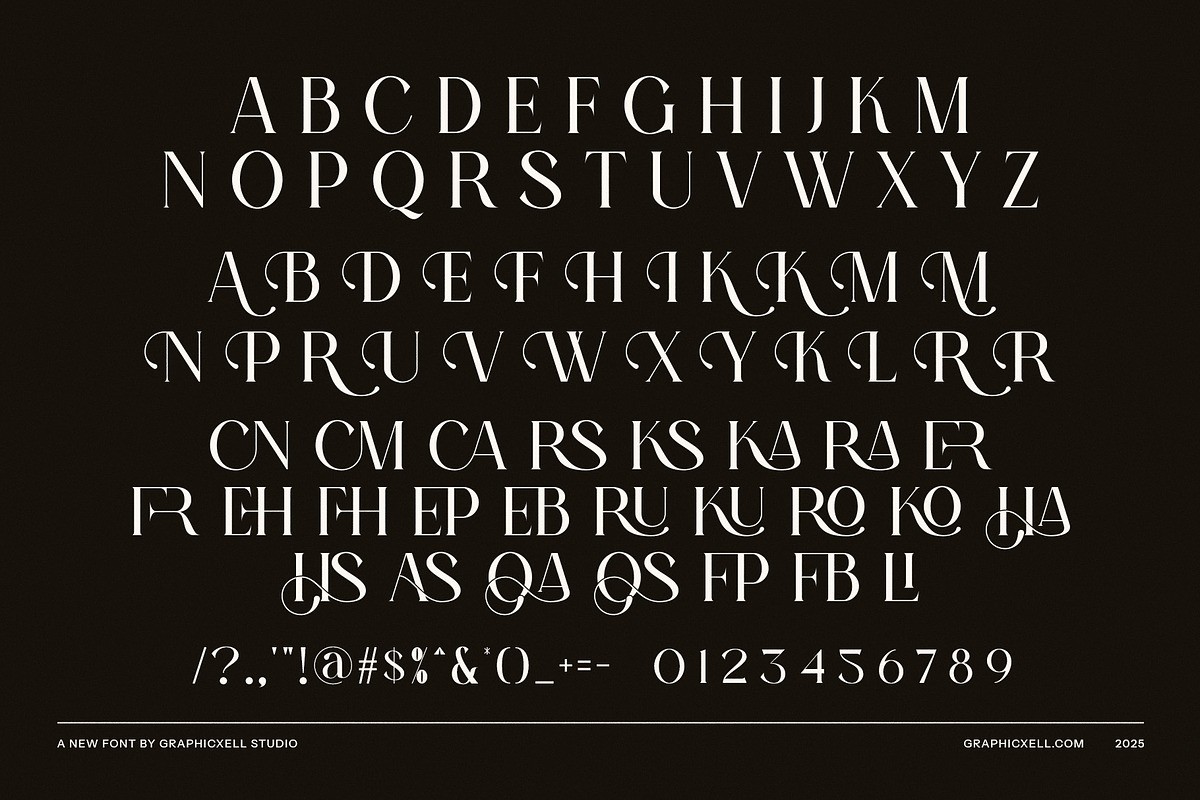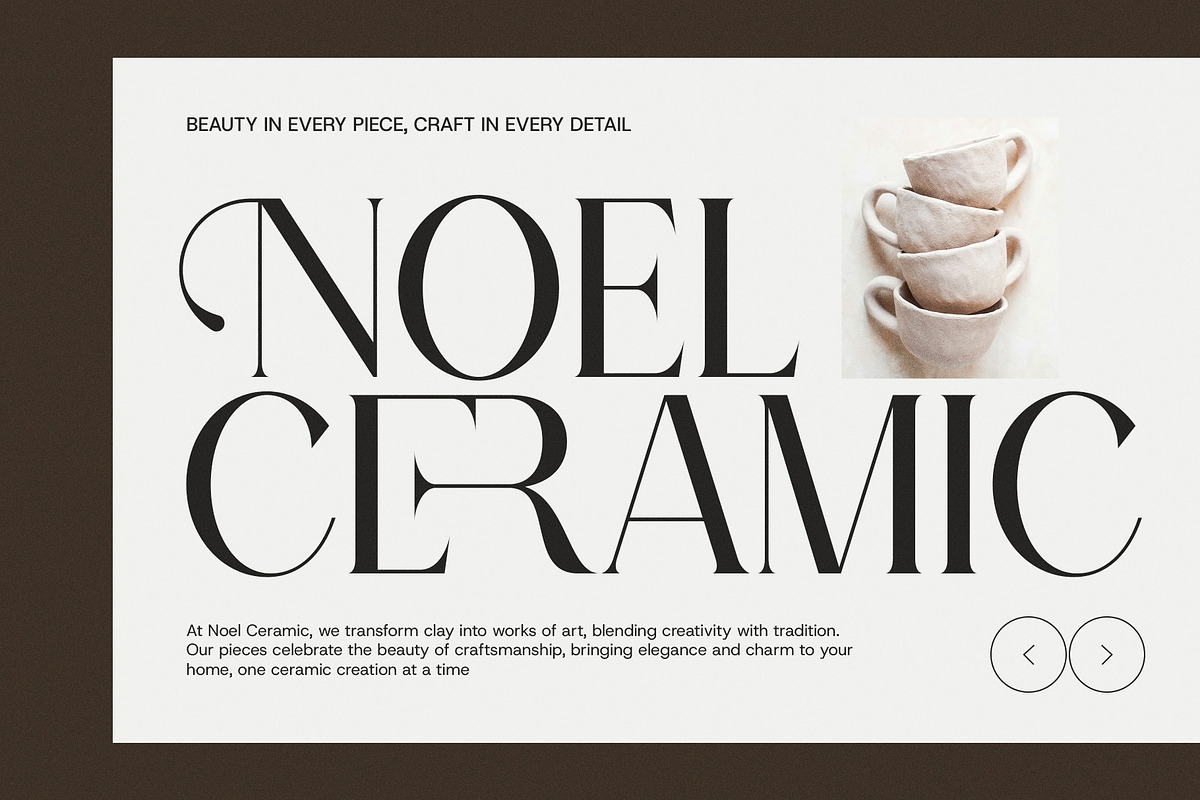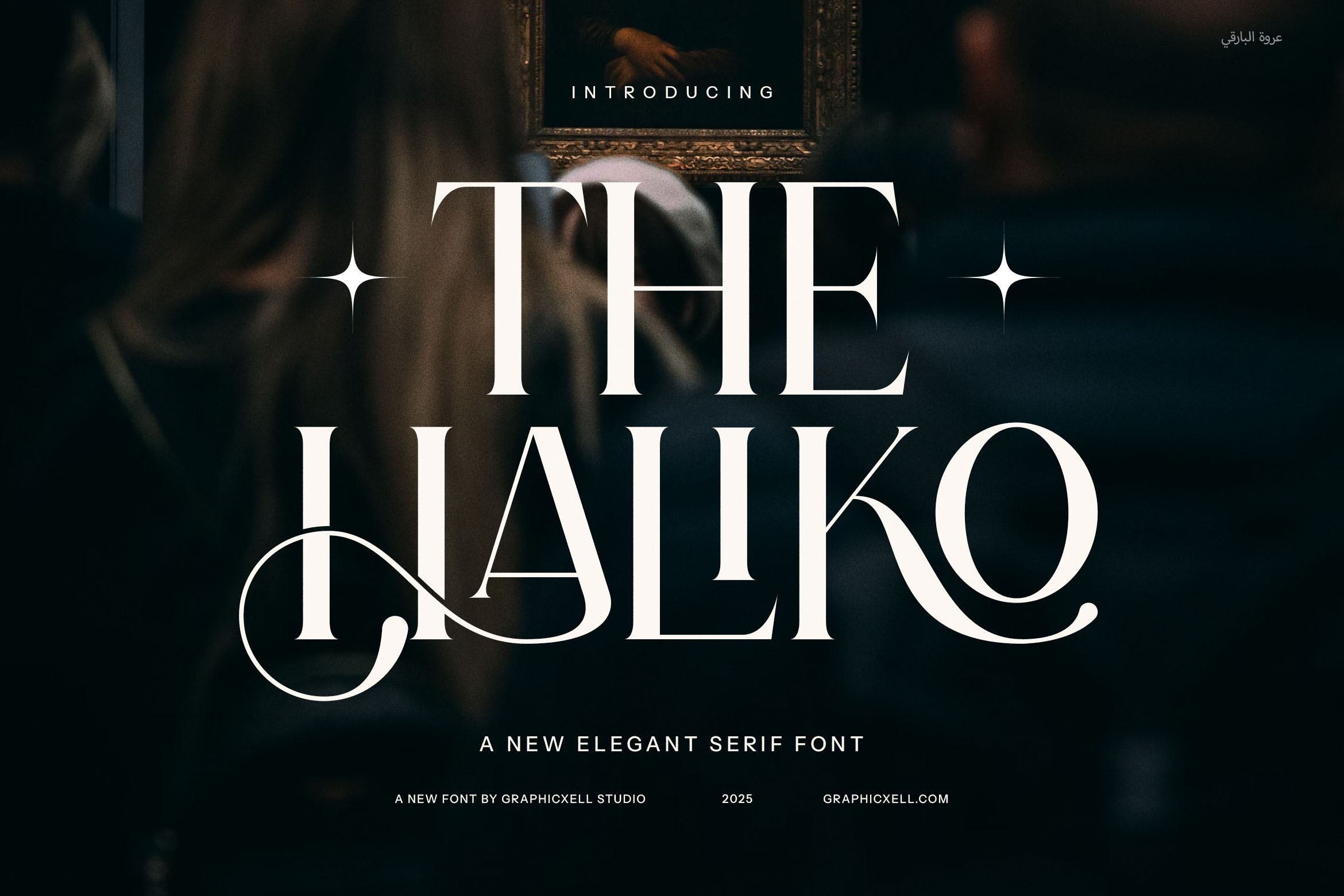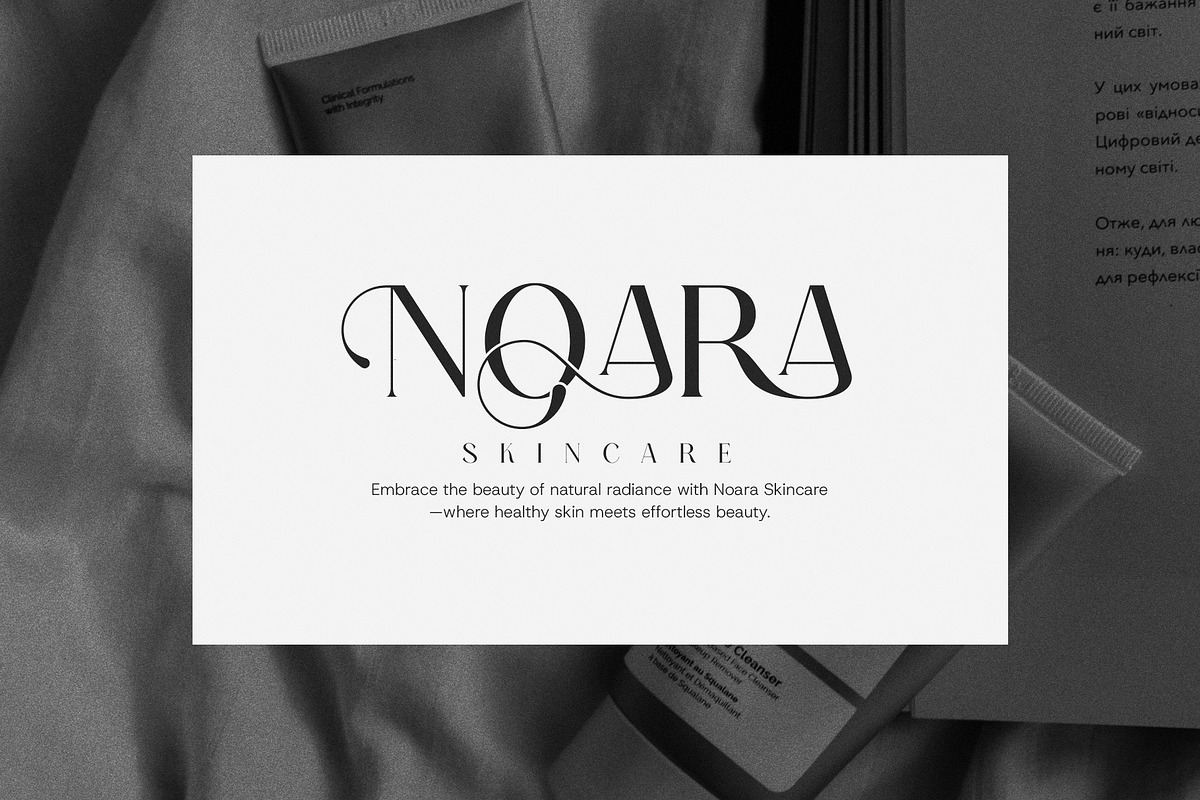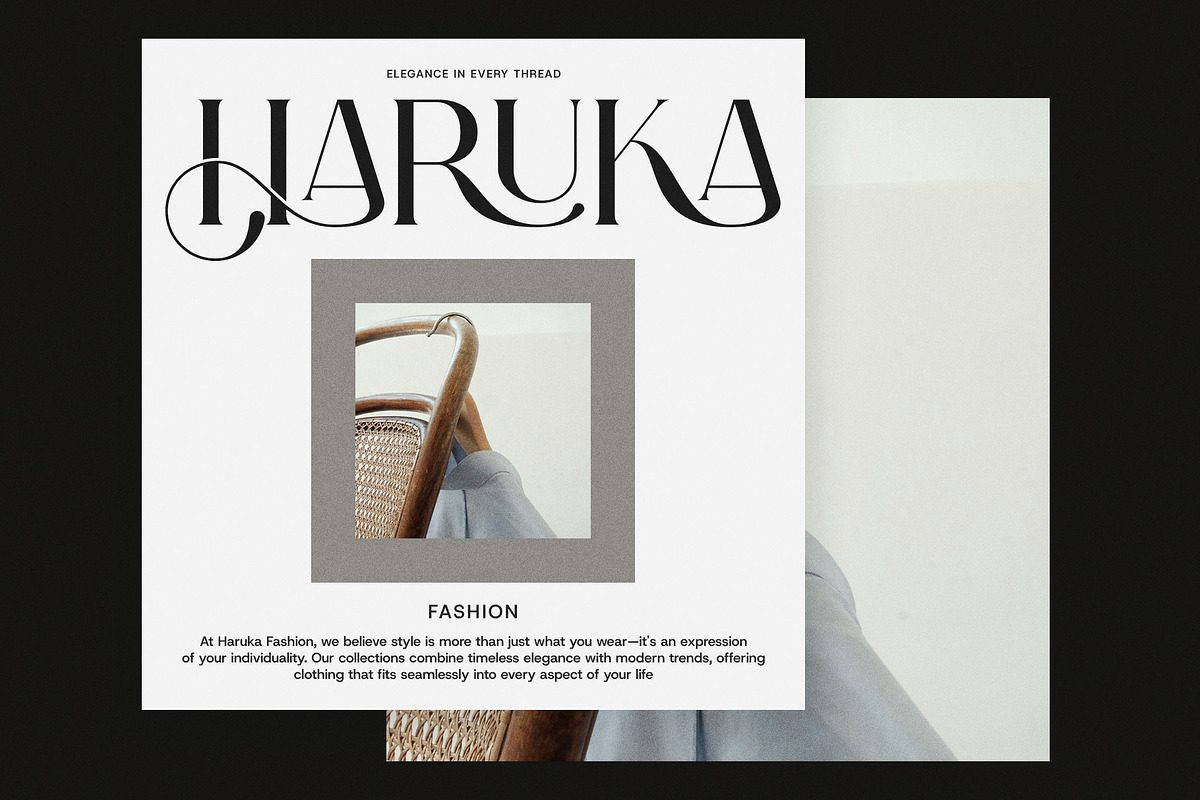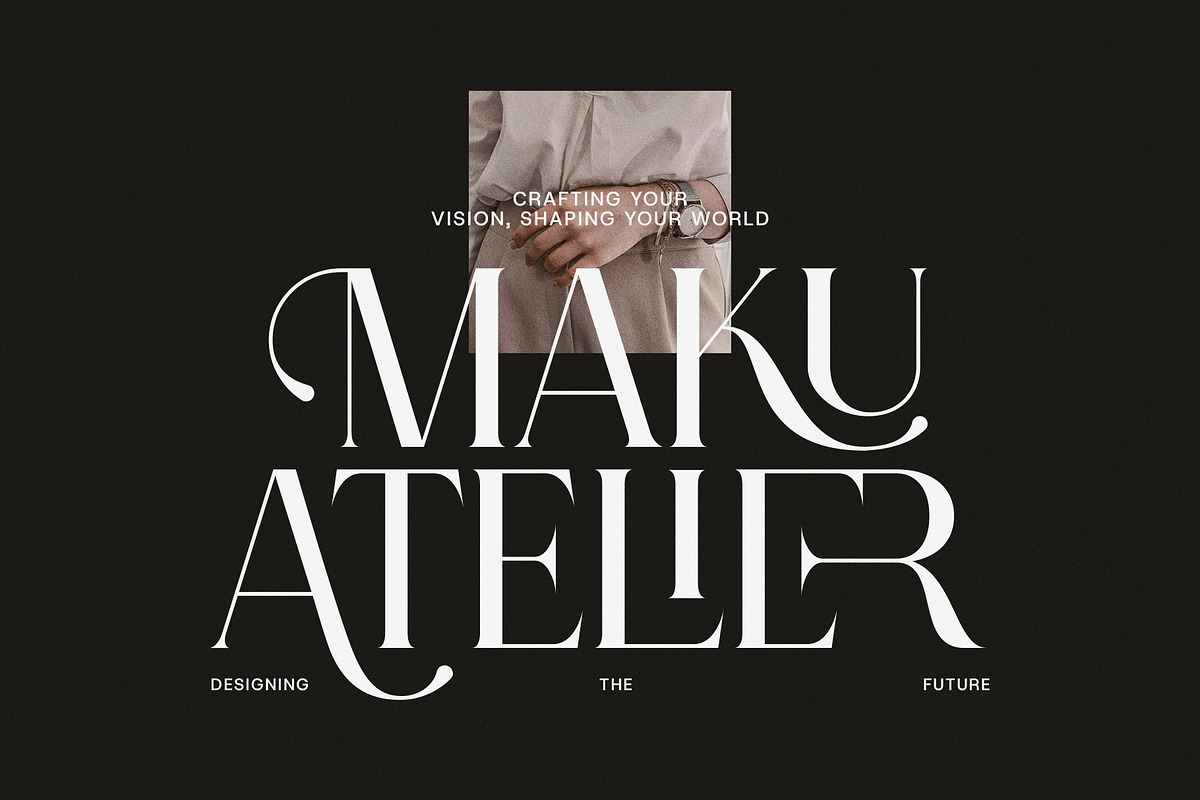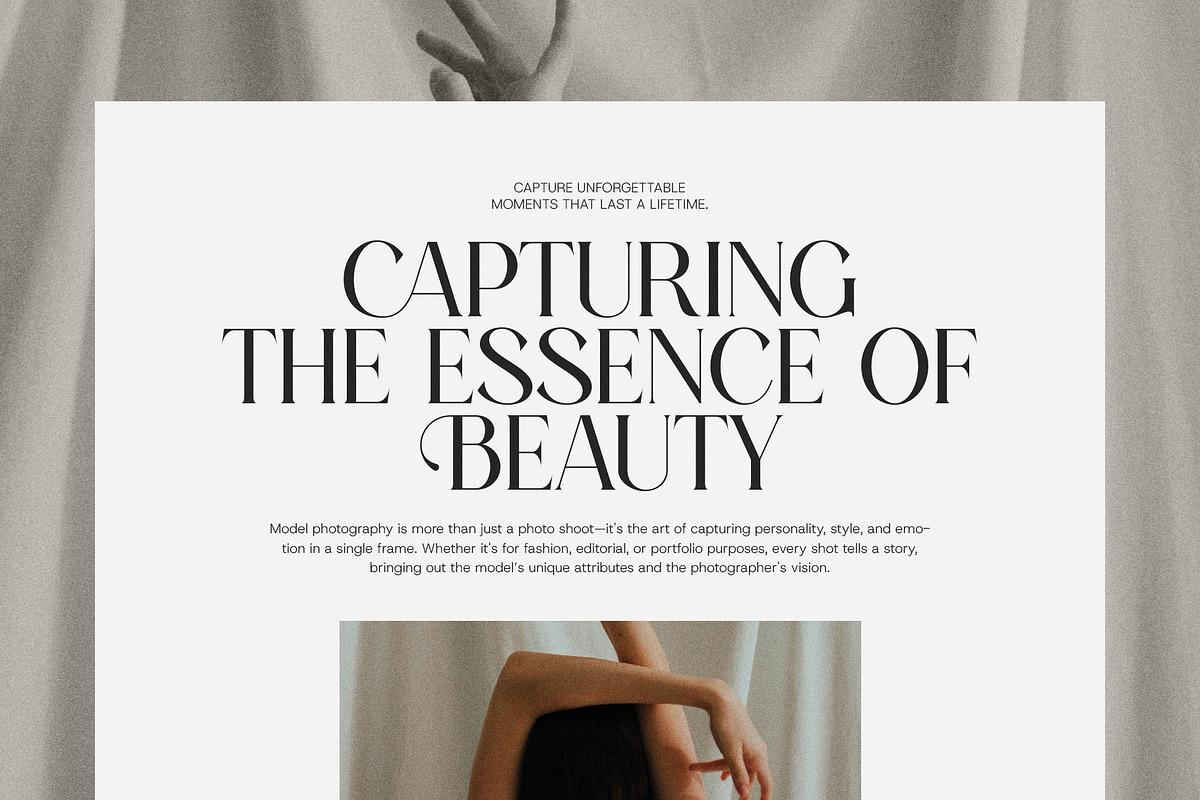
Haliko Elegant Serif Font
Haliko Elegant Serif is a striking and refined typeface that embodies modern sophistication with a timeless touch. Designed with precision and artistry, this font features smooth curves, delicate serifs, and beautifully crafted ligatures that add an exclusive and high-end feel to any design. Whether for branding, editorial layouts, luxury packaging, or web design, Haliko brings an effortless elegance that elevates visual storytelling.
One of Haliko’s standout features is its unique alternates and graceful ligatures, allowing for dynamic and expressive typography. This makes it a perfect choice for fashion labels, boutique branding, magazine headlines, and premium advertisements. The carefully balanced letterforms and high contrast strokes create a sense of poise and distinction, ensuring that every composition feels polished and sophisticated.
Versatile and stylish, Haliko adapts seamlessly to a variety of design aesthetics. Whether paired with a sleek sans-serif for a contemporary look or used independently for a bold and elegant statement, it enhances logos, product packaging, and marketing materials with a luxurious appeal.
For designers seeking a font that merges elegance with modern versatility, Haliko Elegant Serif is the ultimate choice. Its refined details and artistic touch make it more than just a typeface—it’s a symbol of sophistication, creativity, and timeless beauty, designed to make every project unforgettable.